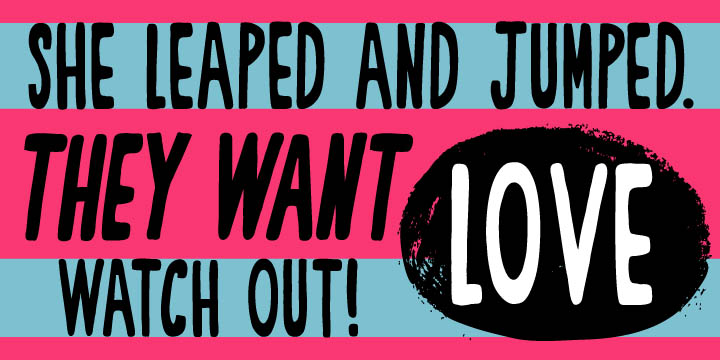
Dreamy Hand was designed by Cindy Kinash. It is a hand drawn font that is bold and fun. Dreamy Hand is a retro inspired font and would work great in posters, advertising and t-shirts.